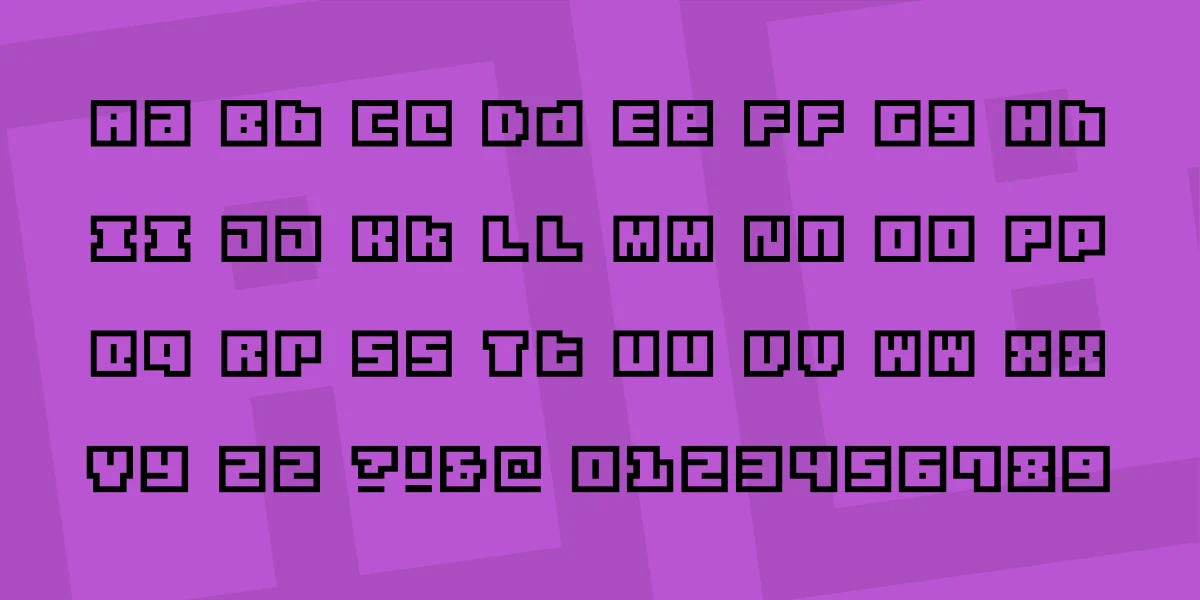
At long last, a new typeface. It was a suggestion made by a good friend of mine after he saw the horrible mistake that is Transuranium (if you care enough, it’s somewhere in the archive). He thought ‘Origami Mommy’ would make a nice name for the font, so that has been made its name. It comes in two variations — regular and Pixellated.
The typeface itself is a study in pixels & whitespace in letters. In order to make letterforms recognizable to the eye, one must pick and choose which dots in a figure stay and which ones are cleared. In the case of Origami Mommy, I started with a seven-by-seven box and proceeded from that point to strategically delete squares from the interior of each box to form what is readily recognized as a letter.
In both fonts, there are alternate letters in the lower & uppercase. Look at the sample below and notice the difference in certain letters such as the a and r, for example. There are alternate characters for both of these letters (among many others) that can be used in conjunction with one another for a seamless & dynamic effect.